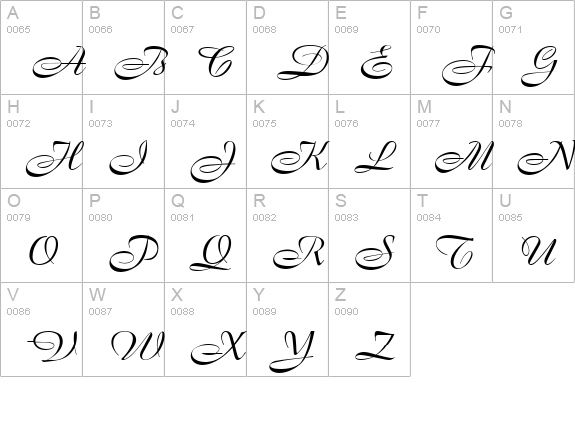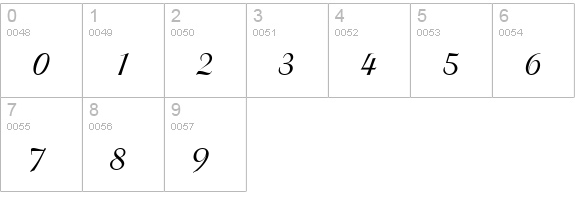
Cassandra font is a stunning typeface that exudes elegance and sophistication. With its delicate lines and graceful curves, this font is perfect for adding a touch of class to any design project. Whether you're creating wedding invitations, branding materials, or editorial layouts, Cassandra font will elevate your work to new heights. What's even better is that Cassandra font is available for free download at FontsMarket.com. This means you can easily access this beautiful typeface and use it in your projects without any cost. Don't miss out on this opportunity to enhance your designs with the timeless beauty of Cassandra font. Download it today and let your creativity shine!